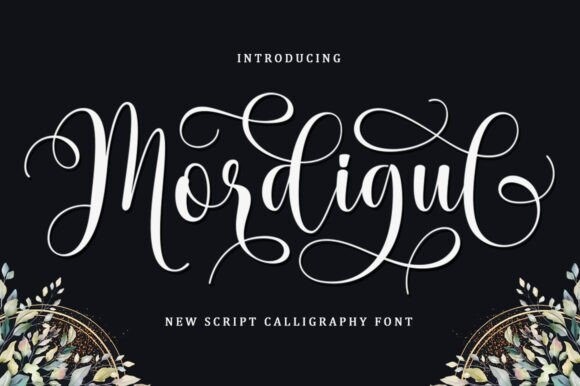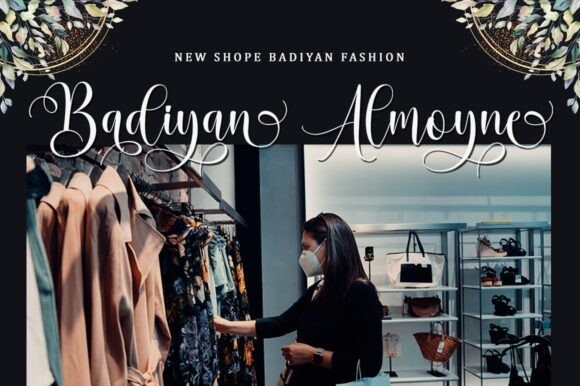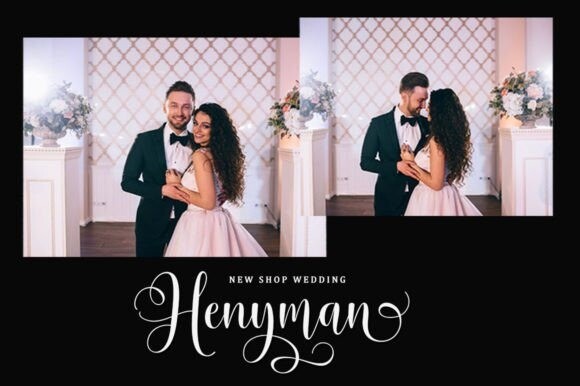
Mordigul Font
Mordigul is a beautiful script that’s perfect for branding, wedding invitations, and other romantic projects. This stylish look makes it perfect to use in all your design projects be it logos, labels, packaging designs, blog titles, posters, wedding designs, social media posts, Instagram designs, etc.